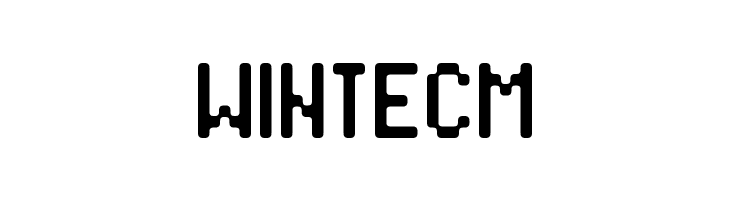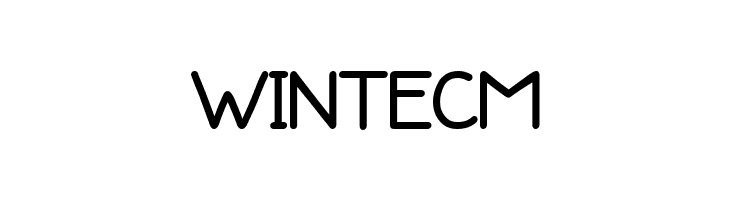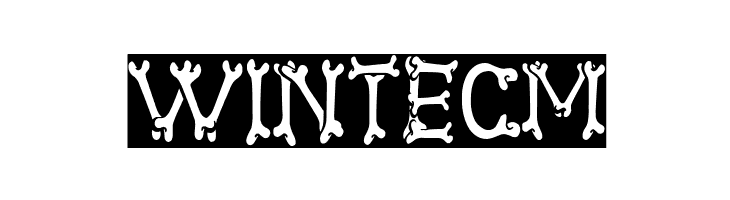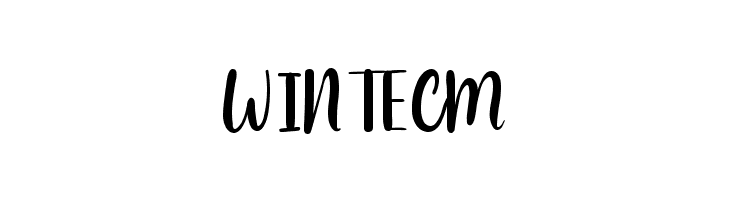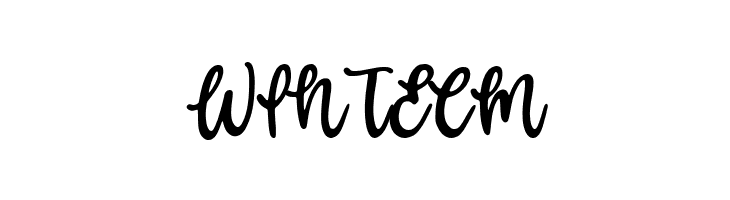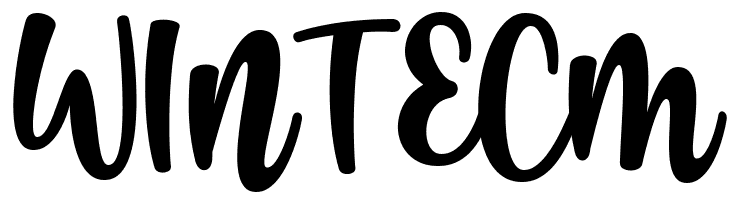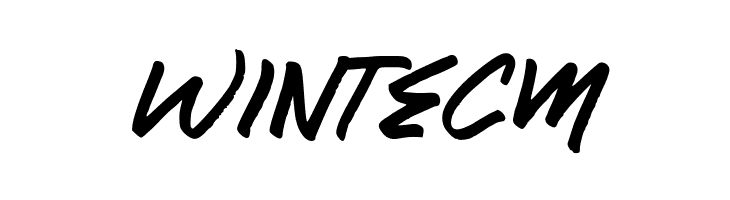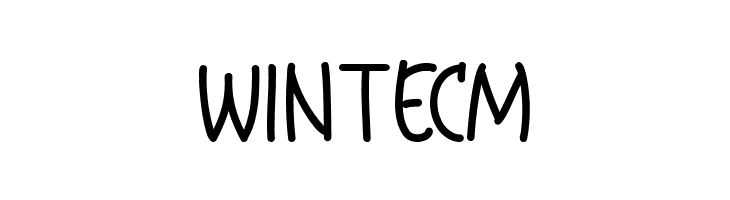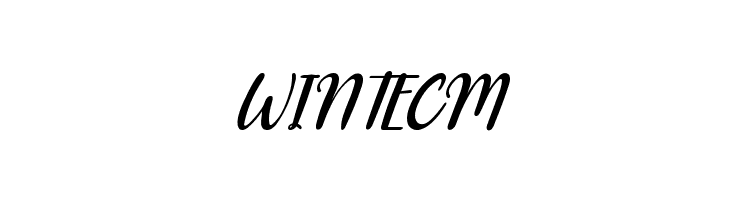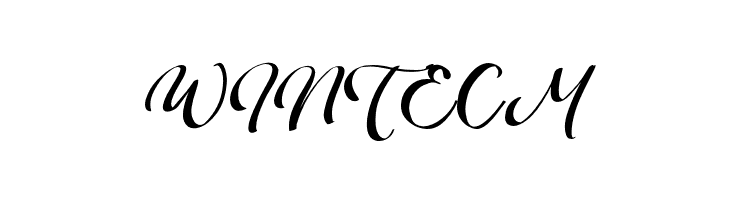
A bold, organic font with a dripping, hand-drawn style.
A bold, dripping display font ideal for horror or Halloween themes.
A bold, dripping font ideal for horror themes and Halloween designs.
A cursive, italic font with a flowing, elegant style.
A pixelated, retro-style font with bold, blocky characters and rounded corners.
A playful and elegant script font with a handwritten touch.
A bold, geometric font with sharp angles and a dynamic style.
A bold, handwritten font with an energetic and casual style.
A bold, flowing script font with a playful and elegant style.
A dynamic and elegant script font with fluid, cursive strokes.
An elegant, flowing script font with a natural handwritten style.
A bold, geometric font with block-like characters and tight spacing.
A bold, playful script font with interconnected, flowing strokes and a handwritten feel.
A fluid and elegant handwritten font with dynamic curves and playful special characters.
A classic serif font with modern elements and elegant proportions.
A bone-themed decorative font perfect for spooky designs.
A decorative, modern calligraphy script with elegant swashes.
A whimsical and decorative font with elongated, curved strokes and playful flourishes.
A modern font with geometric influences and elongated strokes.
A playful, hand-drawn font with stitched embellishments and a whimsical style.
A bold, geometric font with a futuristic and modern aesthetic.
A playful, handwritten font with bold strokes and a casual style.
A lively handwritten font with fluid, cursive strokes and a personal touch.
A playful, rounded font with a whimsical and friendly style.
A playful, handwritten-style font with bold, dynamic strokes.
A bold, textured font with a brush-like appearance, perfect for impactful designs.
A bold, decorative font with circular cutout patterns for a playful, artistic look.
A bold, balloon-like decorative font with rounded, playful shapes.
A bold, angular font with a modern and futuristic aesthetic.
A playful, handwritten font with whimsical loops and curls.
A playful, rounded font with smooth curves and uniform strokes.